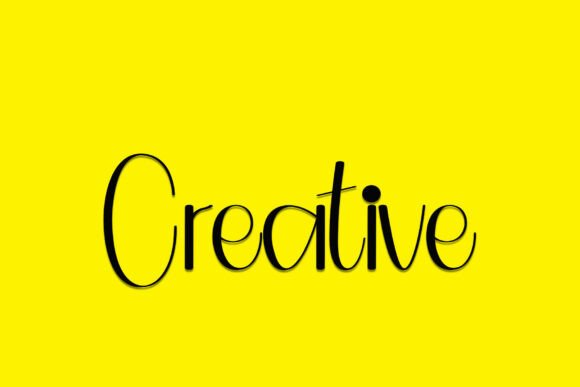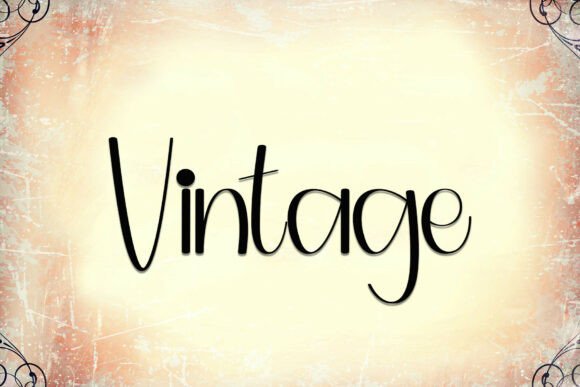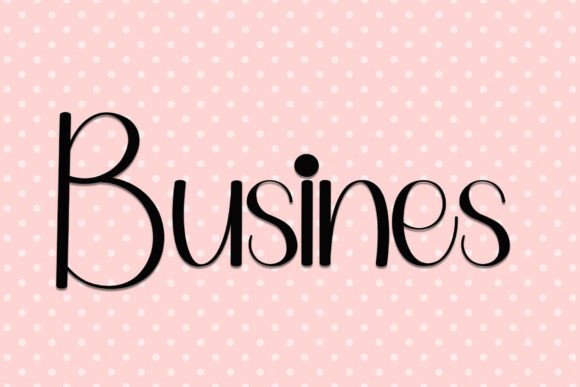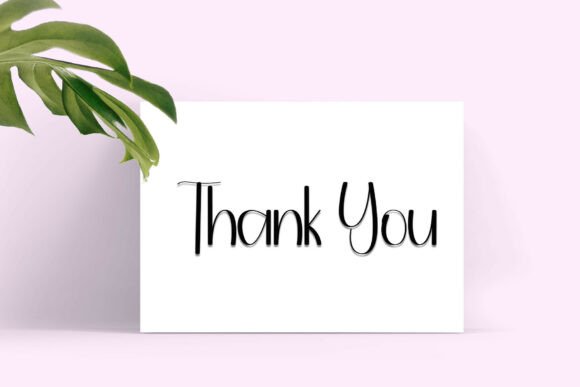
Introducing Ghost Font: The Sweet and Cursive Handwritten Font for Elegant Designs
Are you looking for a font that can add a touch of elegance and romance to your designs? Look no further than Ghost Font, a sweet and cursive handwritten font that is perfect for a variety of design projects. With its gentle and flowing curves, Ghost Font is sure to make your designs stand out and leave a lasting impression.
What Makes Ghost Font Special?
Ghost Font is a unique and versatile font that is designed to be both elegant and casual. Its cursive handwritten style gives it a personal and touchable feel, making it perfect for designs that require a human touch. Whether you’re working on a branding project, creating a logo, or designing a wedding invitation, Ghost Font is the perfect choice.
One of the key features that sets Ghost Font apart is its ability to add a joyful and romantic touch to any design. Its flowing curves and gentle lines evoke a sense of whimsy and playfulness, making it perfect for designs that require a lighthearted and airy feel.
Ghost Font is a versatile font that can be used for a wide range of design projects. Here are just a few ideas to get you started:
- Branding: Use Ghost Font to create a unique and memorable brand identity that stands out from the crowd.
- Logo Design: Create a stunning logo that showcases your brand’s personality and style with Ghost Font.
- Wedding Designs: Add a touch of romance and elegance to your wedding designs, including invitations, programs, and decorations.
- Greeting Cards: Create beautiful and heartfelt greeting cards for special occasions, such as birthdays, anniversaries, and holidays.
- Fashion: Use Ghost Font to create stunning fashion designs, including lookbooks, catalogs, and advertisements.
- Marketing Promotion: Add a touch of elegance and sophistication to your marketing materials, including brochures, flyers, and posters.
Why Choose Ghost Font?
There are many reasons why Ghost Font is the perfect choice for your design projects. Here are just a few:
- Elegant and Casual: Ghost Font strikes the perfect balance between elegance and casualness, making it perfect for designs that require a touch of sophistication and whimsy.
- Unique and Versatile: Ghost Font is a one-of-a-kind font that can be used for a wide range of design projects, from branding and logo design to wedding designs and marketing materials.
- Easy to Read: Ghost Font is designed to be easy to read, even at small sizes, making it perfect for designs that require a lot of text.
- High-Quality: Ghost Font is a high-quality font that is designed to look stunning on a variety of devices and platforms.
In conclusion, Ghost Font is a sweet and cursive handwritten font that is perfect for designers and crafters looking to add a touch of elegance and romance to their designs. With its unique and versatile style, Ghost Font is sure to make your designs stand out and leave a lasting impression. Whether you’re working on a branding project, creating a logo, or designing a wedding invitation, Ghost Font is the perfect choice.